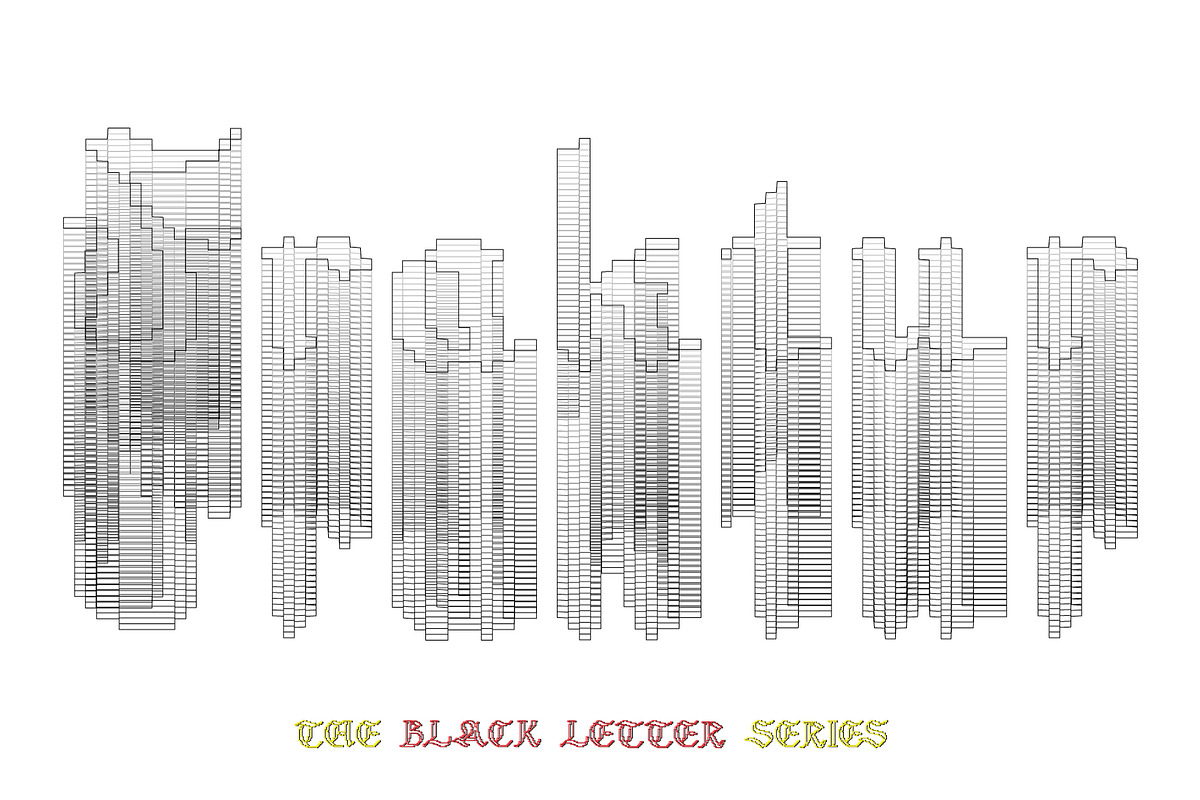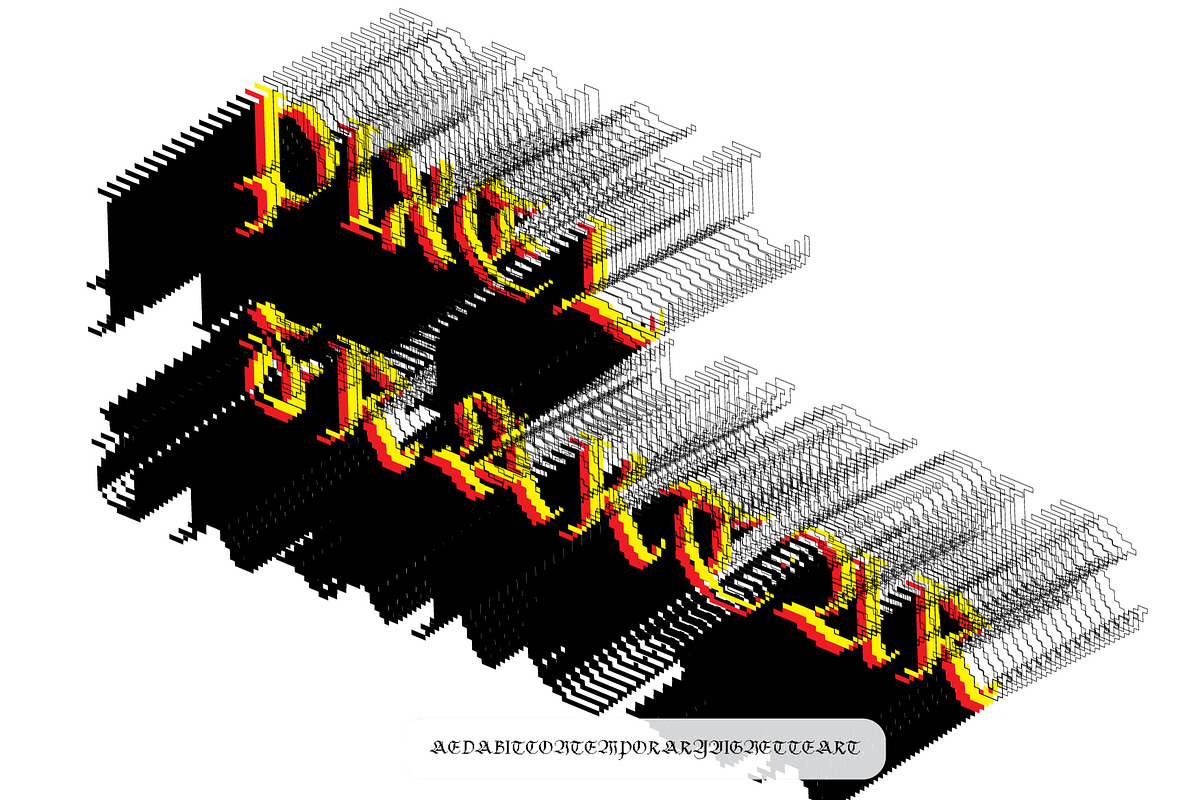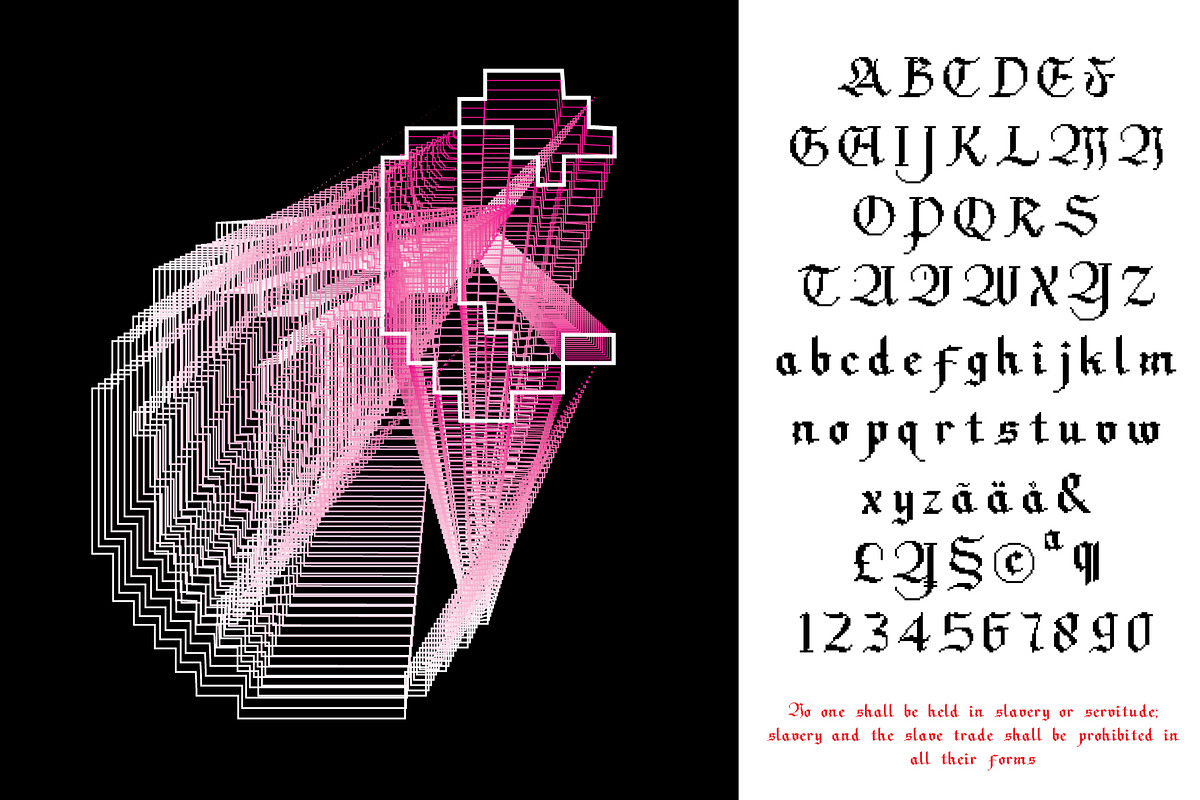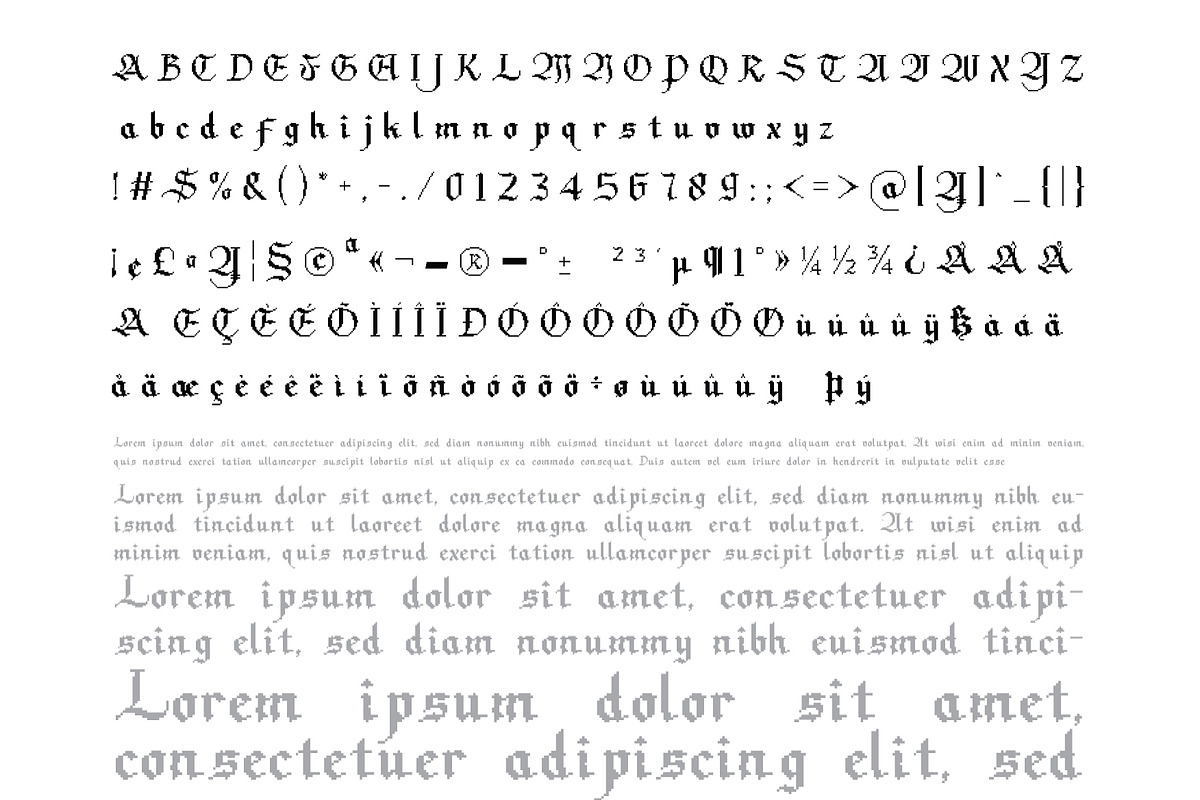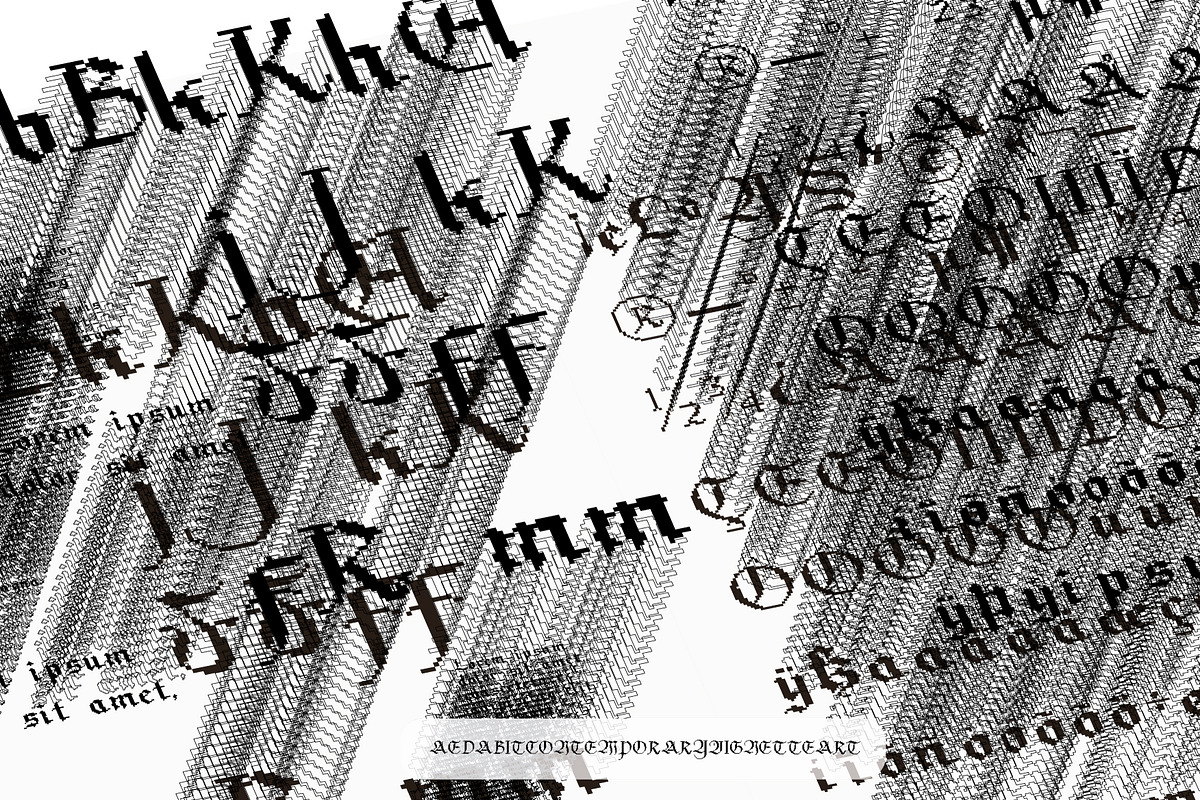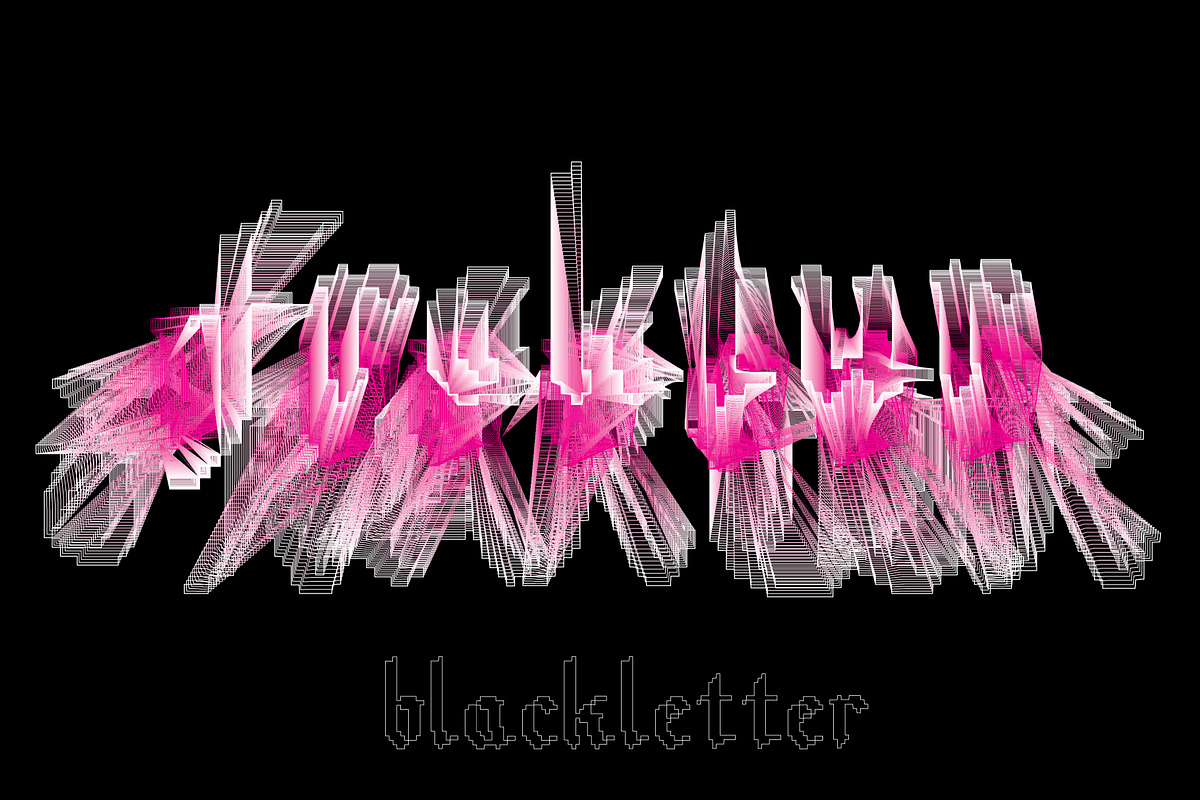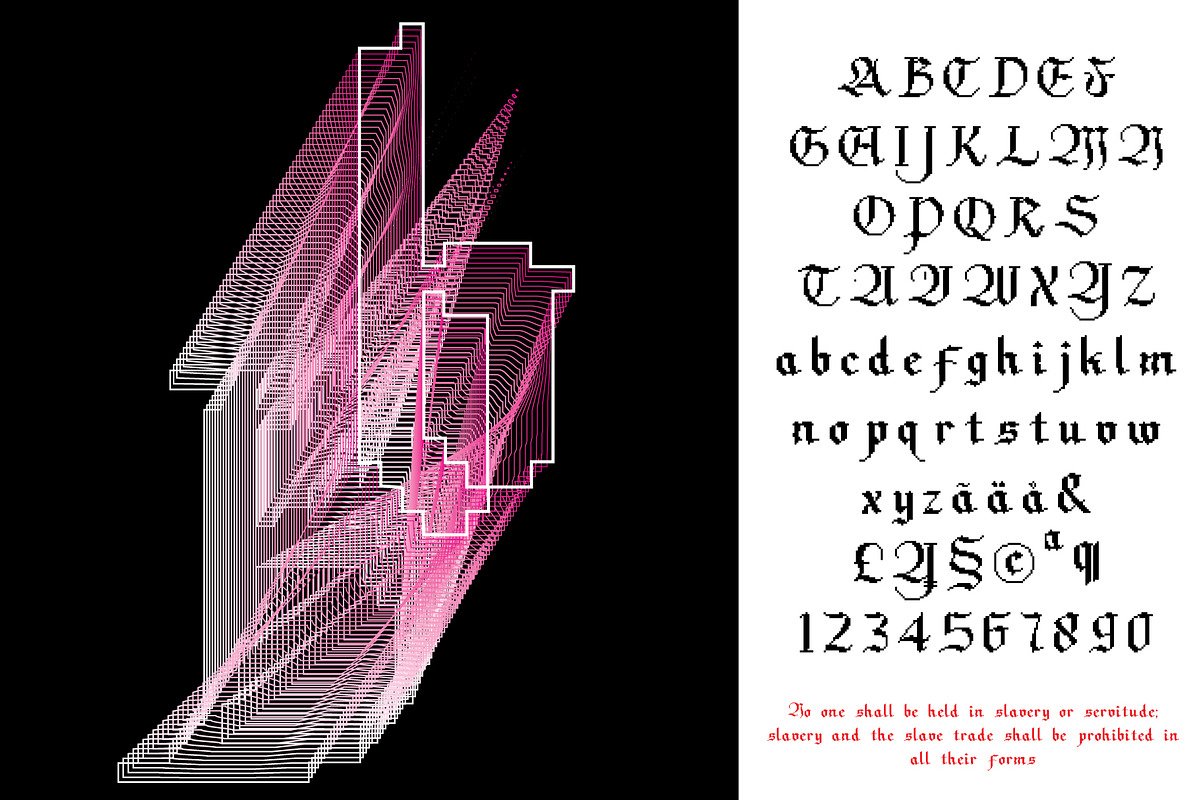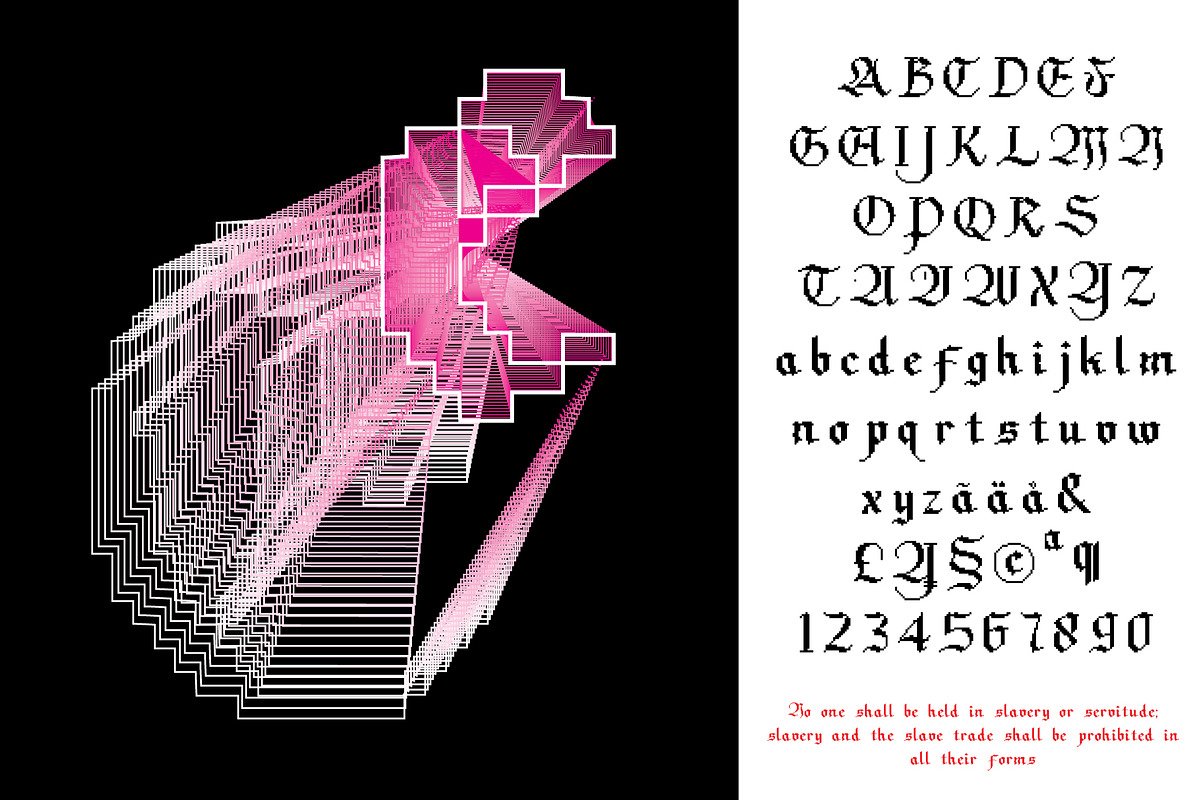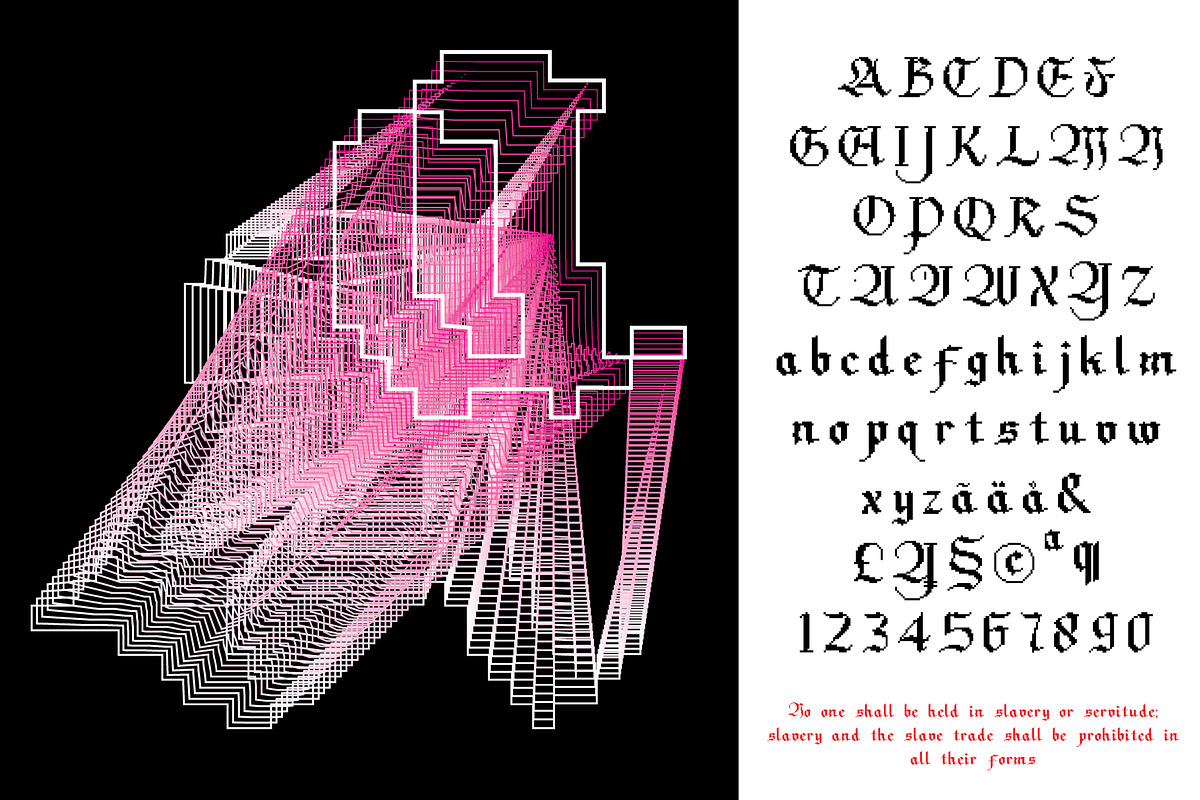
Pixel Fraktur Blackletter
Pixel Fraktur Font Art 190 Character Glyphs Web Font
Fraktur is a notable script of this type, and sometimes the entire group of blackletter faces is referred to as Fraktur. Blackletter is sometimes referred to as Old English, but it is not to be confused with the Old English language, which predates blackletter by many centuries and was written in the insular script or in Futhorc. Along with Italic type and Roman type, blackletter served as one of the major typefaces in the history of Western typography.